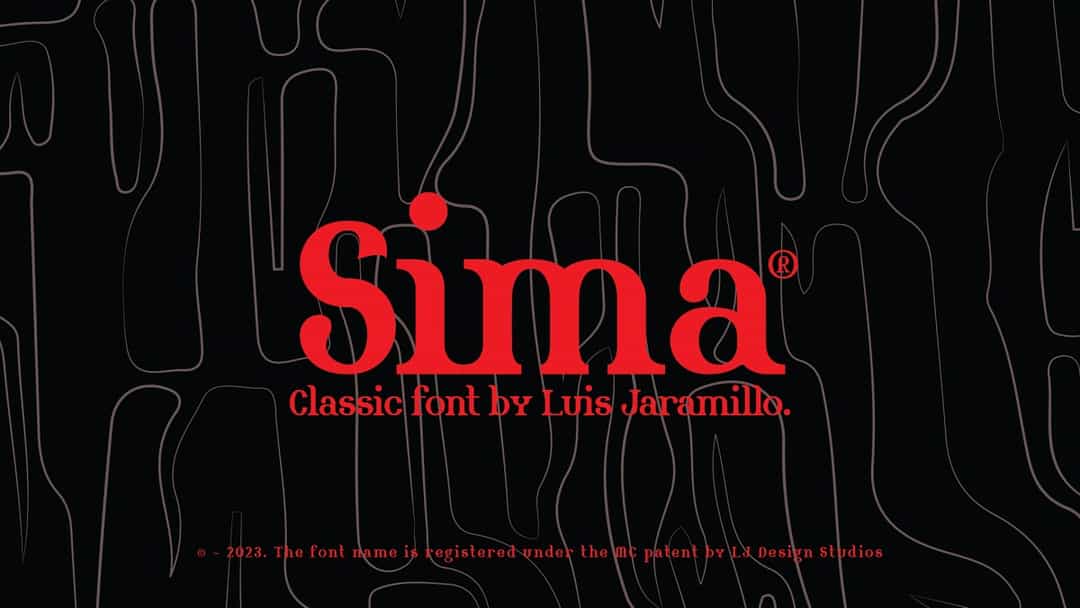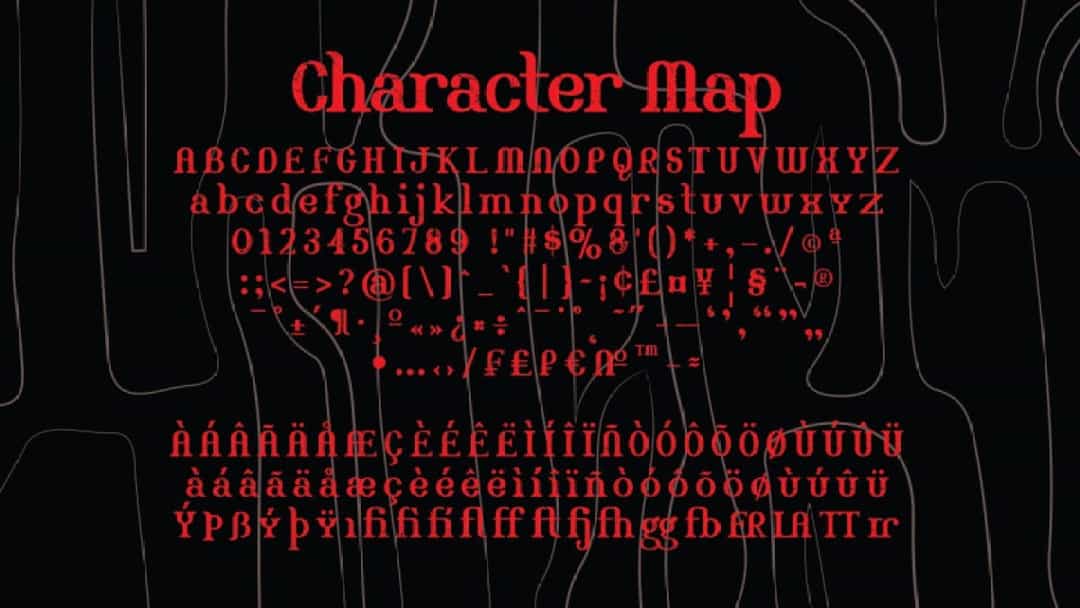
Sima is a classic serif font adapted to an unmistakable style and available in two typeface families that make it suitable for formality, decoration and paragraph writing. Additionally, the grunge design makes this font perfect for logos, decorative texts and other uses of text.